The Right Font Could Save Your Life
Good design can be important for many reasons. It can be critical to the success of your business, your career, and your sense of creative fulfillment. But you probably don’t often think of design as critical to your survival. But when it comes to automotive displays, and how they affect driver distraction and reaction time, design and typography can literally be the difference between life and death.
To determine exactly how typography can affect drivers, the MIT AgeLab and Monotype Imaging conducted studies to determine if the use of certain typefaces can mitigate driver distraction.
The results indicate that use of a humanist font like Frutiger can reduce the time male drivers spend glancing at in-vehicle displays (aka “glance time”) by more than 10% when compared to a square grotesque font like Eurostile. Similar results were seen for males in total response time and number of glances. However, results for female drivers were quite different. The impact of fonts was more modest or not apparent for women.
“The study indicates that the right typefaces can make a difference in reducing the amount of time not focused on the road, and therefore, gets us closer to our goal of improving driver safety,” said Bryan Reimer, research scientist at MIT AgeLab and one of the principal researchers of the project. “With digital information and entertainment increasingly available through in-vehicle displays, we know that text in cars is here to stay. Given this reality, text needs to be as easy to read as possible. Your eyes need to get back on the road very quickly for obvious reasons.”
If you’re interested in digging into the details of the studies, you can check out the whitepaper, An Evaluation of Typeface Design in a Text-Rich Automotive User Interface (36 pp. PDF).
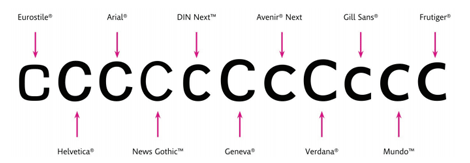
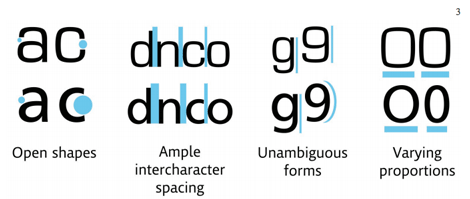
Here’s a video produced by Monotype and the MIT AgeLab describing the studies and their findings.